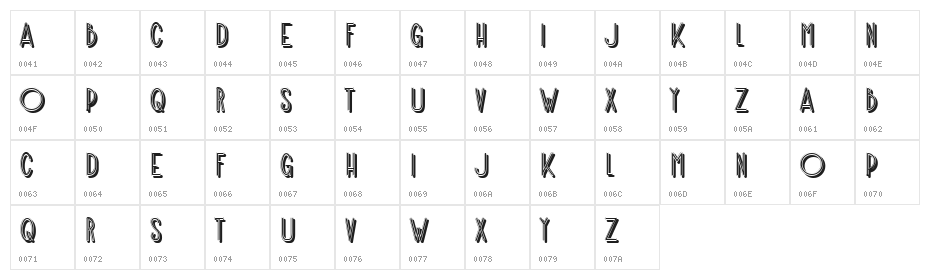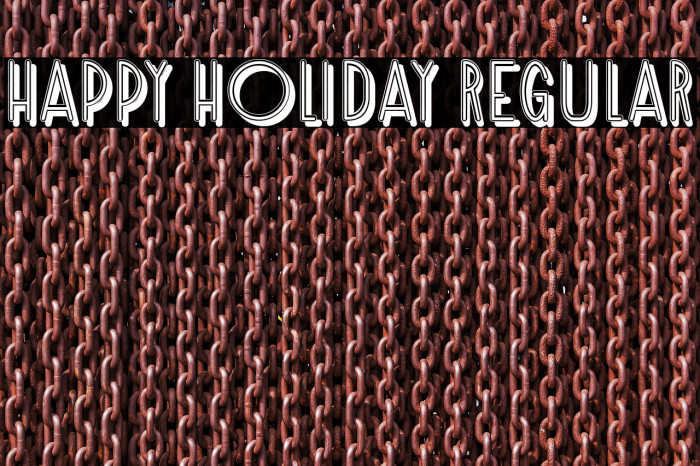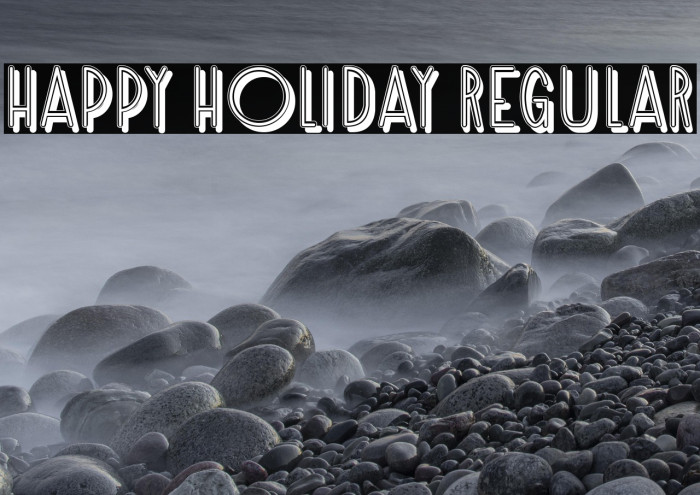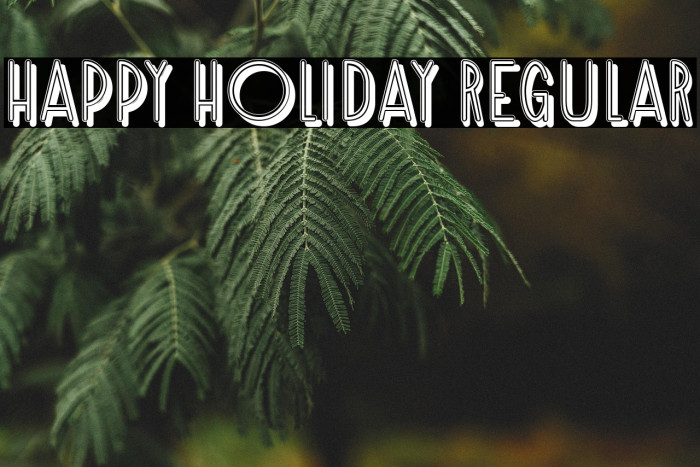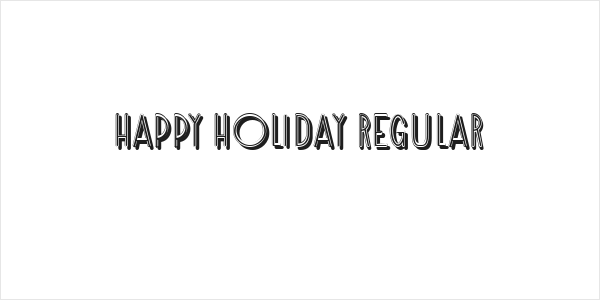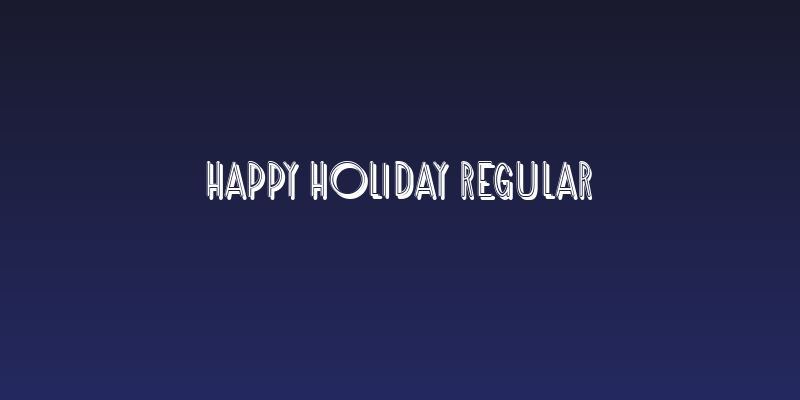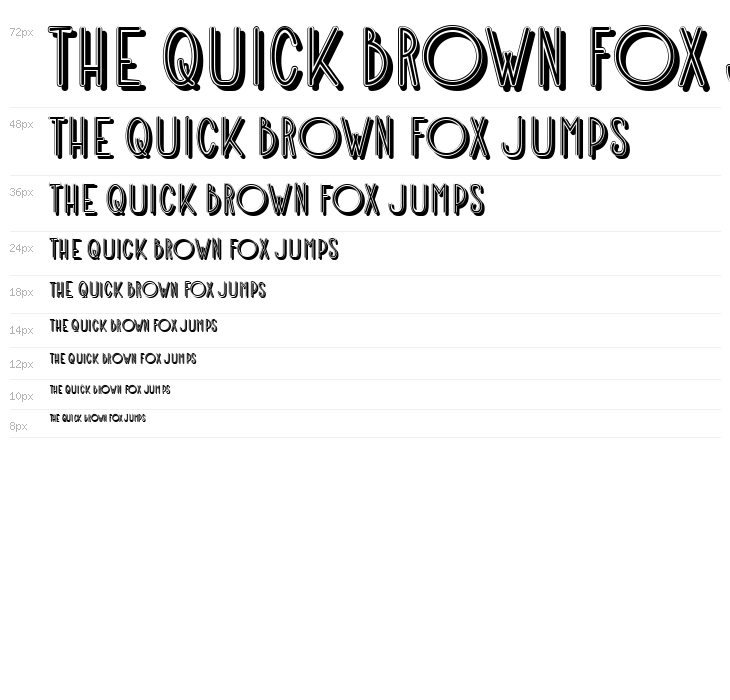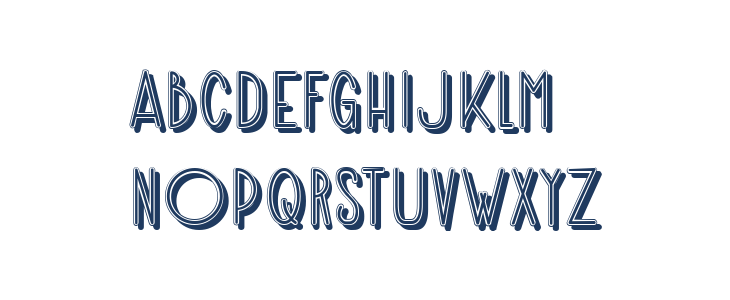
Happy Holiday Regular Font
Happy Holiday Regular Description
This font features a playful and festive design, characterized by bold, outlined letters with a shadow effect that gives a three-dimensional appearance. The uppercase letters are uniform in height, with rounded edges and a consistent stroke width. The style is reminiscent of holiday-themed decorations, making it ideal for celebratory and cheerful contexts. The font's unique outline and shadow create a sense of depth, adding visual interest and making it stand out in various applications. Its decorative nature is perfect for capturing attention and conveying a joyful message.